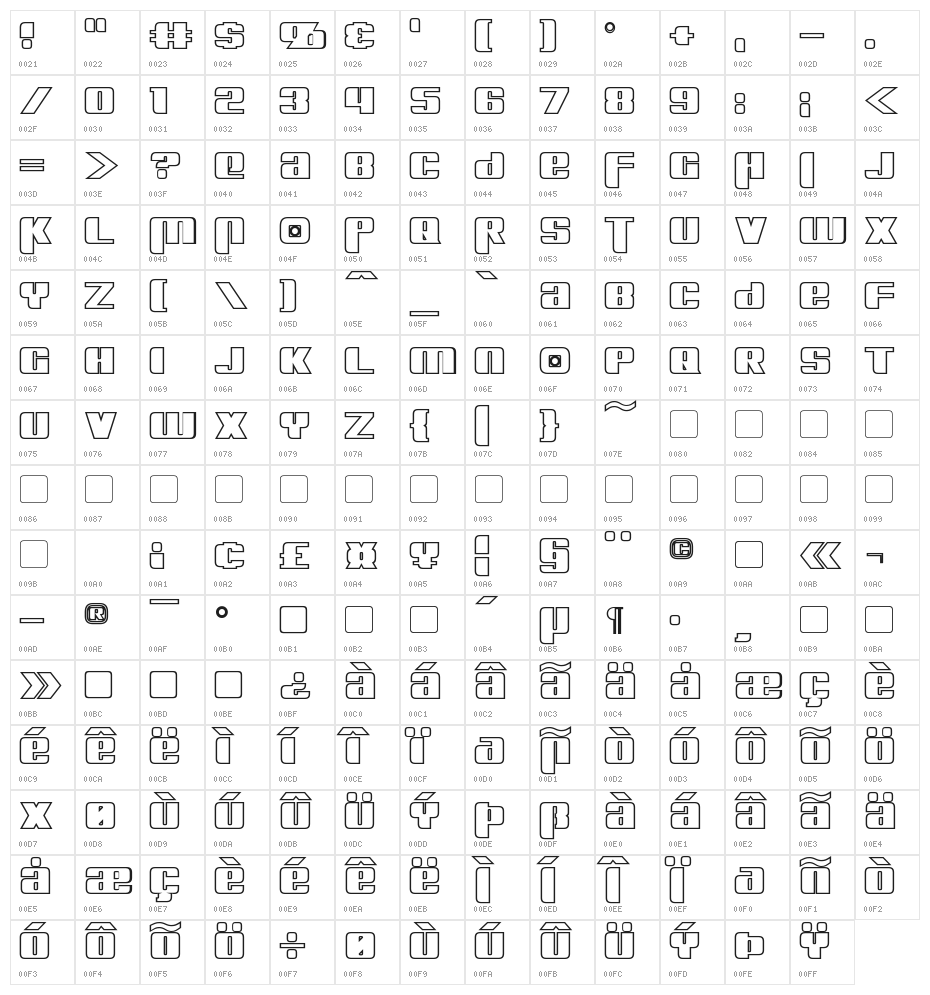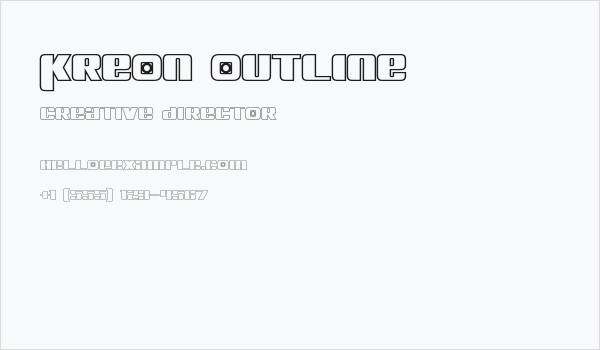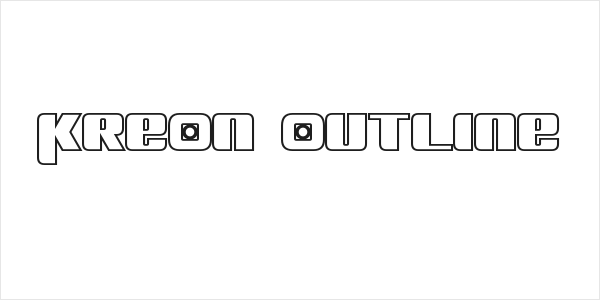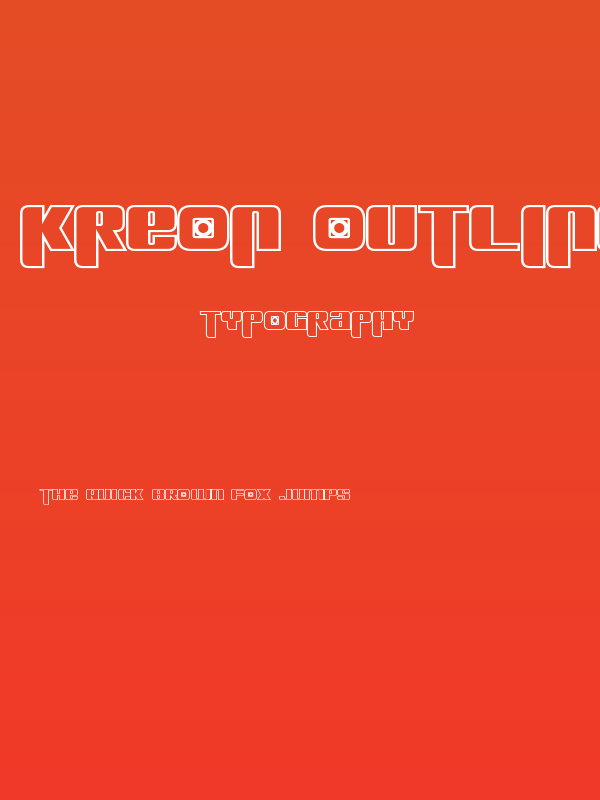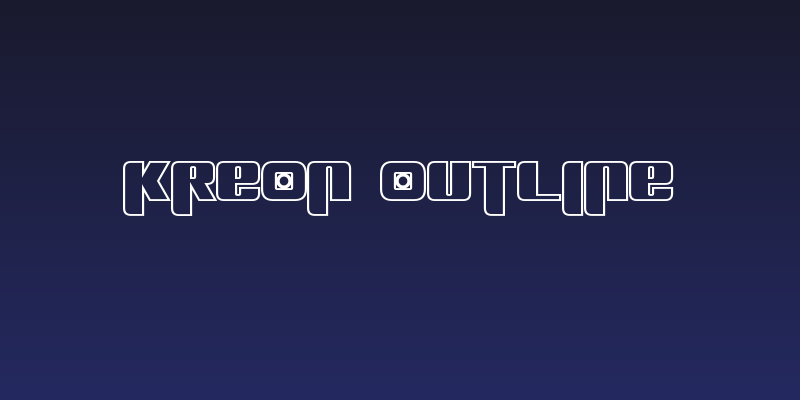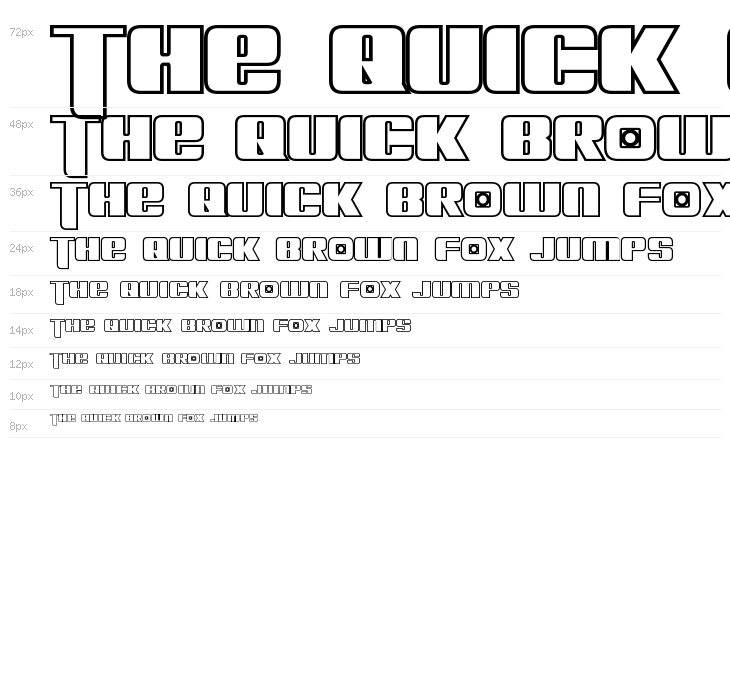
Kreon Outline Font
Kreon Outline Description
This font features a bold, geometric outline style that emphasizes its modern and futuristic aesthetic. Each character is crafted with a consistent thickness, creating a uniform appearance that is both striking and legible. The uppercase and lowercase letters share a similar design, maintaining a cohesive look throughout the alphabet. The numbers and special characters are designed to match the boldness and style of the letters, ensuring a seamless integration in any text. The font's outline nature gives it a unique, hollow appearance, making it ideal for designs that require a standout, eye-catching element.
| Proposed Projects | Ideal for branding, posters, headlines, and digital artwork where a modern and bold statement is needed. |